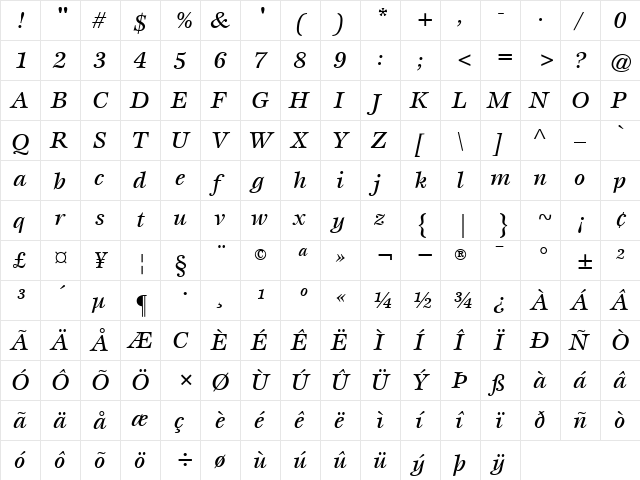
ITCEsprit-Medium MediumItalic
Design Context for ITCEsprit-Medium Typeface
ITCEsprit-Medium takes a measured approach to typography — its balanced proportions and neutral character make it a reliable workhorse for both digital and print work. Its italic angle brings a sense of urgency and motion to the letterforms.
Pro Tip: Try ITCEsprit-Medium for annotation and caption copy alongside an upright companion — the contrast in angle creates a dynamic but ordered typographic system.